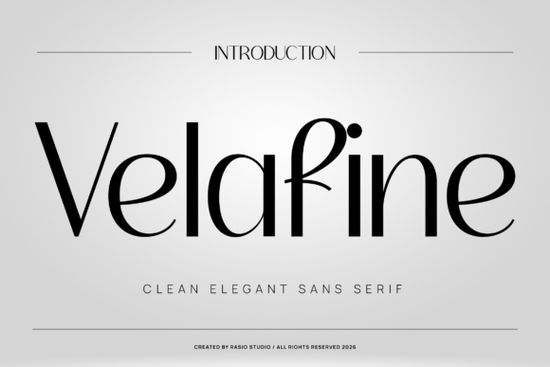
When it comes to adding a touch of elegance and sophistication to your designs, the Velafine Font is a standout choice. This minimalist sans-serif font is perfect for those who appreciate clean, high-fashion aesthetics. Whether you're working on a boutique fashion house logo or designing premium fragrance packaging, Velafine offers a unique blend of sleekness and style.
Why Choose Velafine Font?
Velafine is designed with ultra-clean, high-fashion letterforms that are both modern and timeless. The fine line weight and dramatic height-to-width ratios make it an ideal choice for creating a luxurious and upscale look. One of its most distinctive features is the script-infused "f" that arcs gracefully over a solid baseline dot, adding a subtle yet striking detail to your text.
Perfect for High-End Design Projects
If you're involved in independent jewelry design, luxury branding, or high-impact social media headers, Velafine can help you achieve a sophisticated and minimalist aesthetic. Its lightweight structural poise and undeniable model runway presence make it a go-to choice for designers, crafters, and print-on-demand sellers looking to add a touch of class to their work.
How to Use Velafine in Your Designs
Incorporating Velafine into your design projects is straightforward. Here are a few tips to get you started:
- Logo Design: Use Velafine for the main text in your logos to create a high-end, minimalist feel. It works particularly well for fashion, jewelry, and cosmetic brands.
- Editorial Layouts: For magazines and other editorial content, Velafine can add a touch of elegance to headlines and subheadings. Pair it with a more readable body text font like Rota Pro Grotesk for a balanced look.
- Social Media Graphics: Create eye-catching social media headers and posts with Velafine. Its minimalist style is perfect for platforms like Instagram and Pinterest, where clean, stylish visuals are key.
- Premium Packaging: For product packaging, especially in the beauty and fashion industries, Velafine can enhance the overall look and feel. Consider using it for labels, tags, and other printed materials.
Comparing Velafine with Other Sans-Serif Fonts
While Velafine stands out with its unique features, it's always good to have a few alternatives in mind. Here’s how Velafine compares with some other popular sans-serif fonts:
- Rota Pro Grotesk: A versatile and modern font that is great for a wide range of design projects. It has a more traditional sans-serif feel compared to Velafine's minimalist luxury.
- Might Font: Known for its strong, bold presence, Might Font is excellent for creating impactful headlines and titles. It complements Velafine well when you need a bolder option.
- Luxury Font: Another elegant option, Luxury Font, shares a similar high-end feel but with a different set of stylistic details. It's a great alternative if you want to explore a slightly different aesthetic.
- Sunflower Font: If you’re looking for a more playful and friendly sans-serif, Sunflower Font is a good choice. It’s less formal than Velafine but still retains a clean, modern look.
Tips for Maximizing Velafine's Impact
To make the most of Velafine in your designs, consider these practical tips:
- Pair with Complementary Fonts: Combine Velafine with a more readable serif or sans-serif font for body text to ensure readability while maintaining a high-end look.
- Use Adequate Spacing: Velafine’s fine line weight benefits from generous spacing between letters and lines. This helps maintain its elegant appearance and enhances legibility.
- Experiment with Colors: While black and white are classic choices, don’t be afraid to experiment with colors. Soft pastels or bold, vibrant hues can complement Velafine’s minimalist style.
- Test on Different Backgrounds: Make sure to test Velafine on various backgrounds to ensure it looks great in all contexts. Light, dark, and textured backgrounds can each bring out different aspects of the font.
By following these tips and exploring the versatility of Velafine, you can create stunning, high-impact designs that stand out. Whether you’re a seasoned designer or just starting out, Velafine is a valuable addition to your font collection.